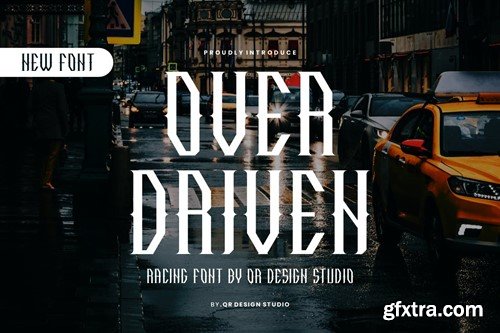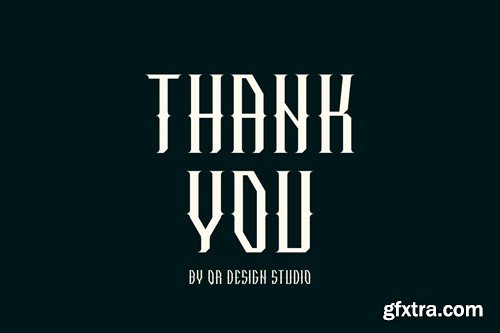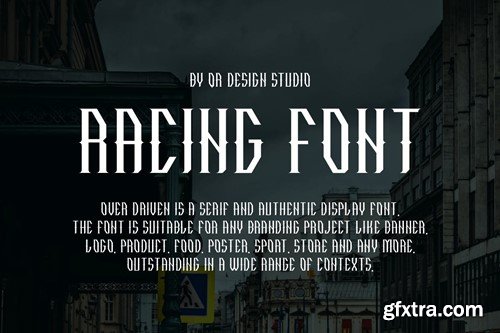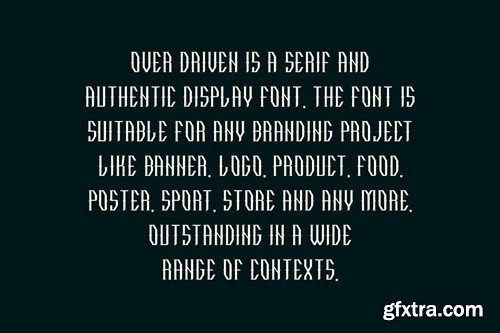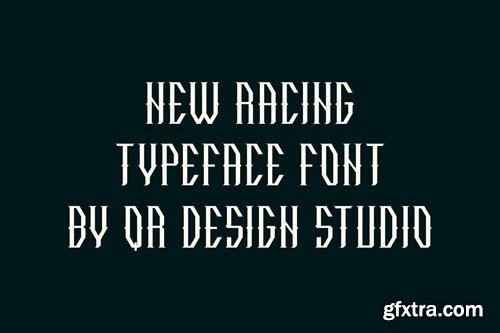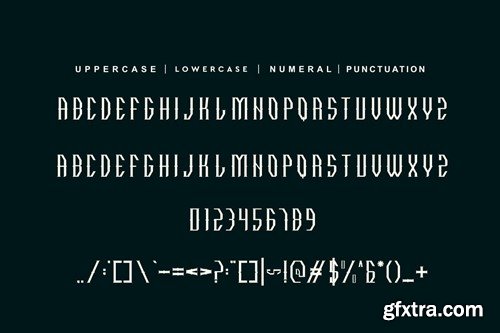
强化驱动 - 汽车字体 EJ6RZNK
Over Driven - Racing Font EJ6RZNK
Over Driven - Racing Font
Over Driven - Racing Font is a decorative and authentic display font. The font is suitable for any branding project like poster, logo, sport, and many more. Outstanding in a wide range of contexts.